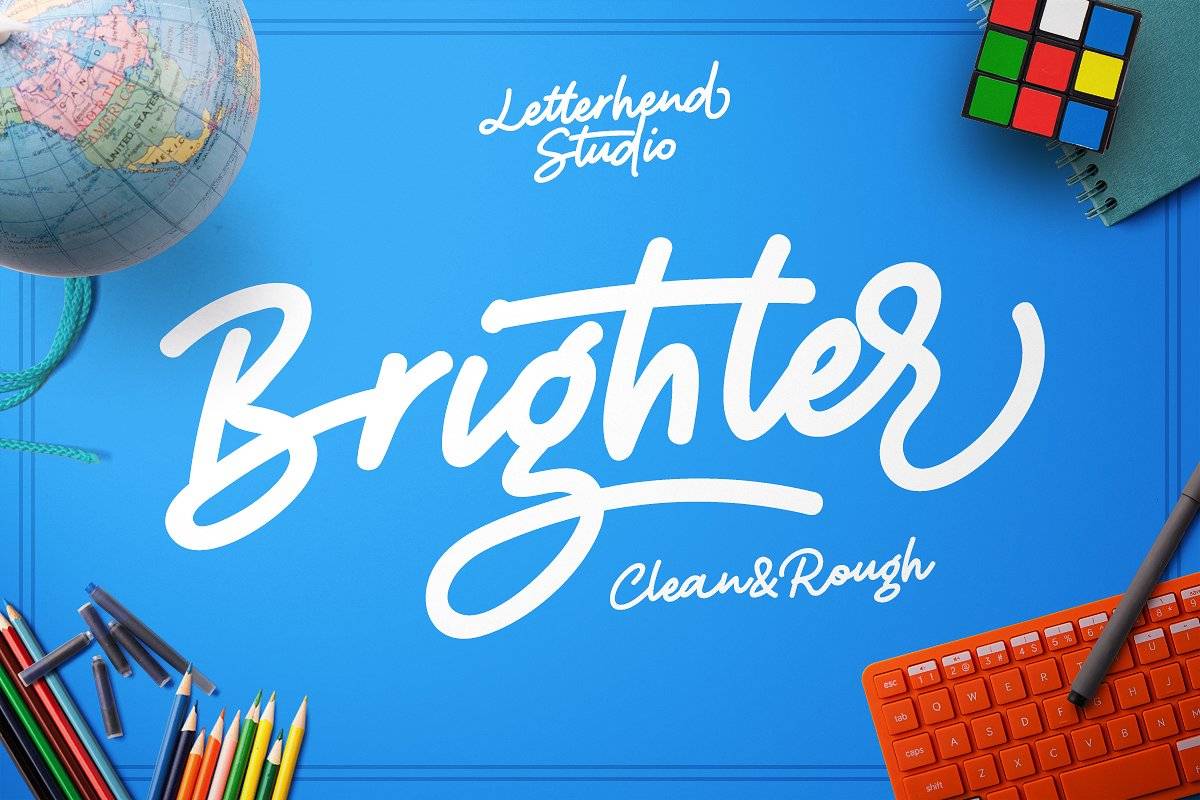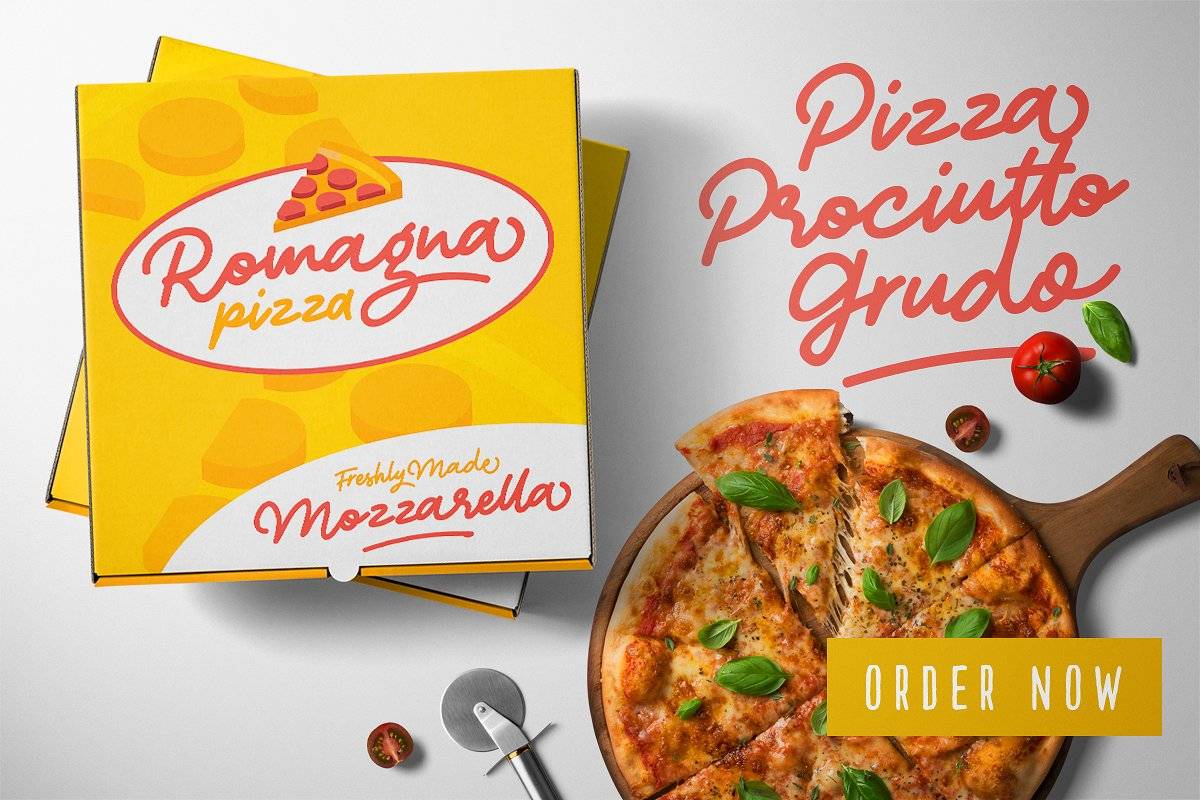
Brighter Font is a lively and modern script typeface with a casual, handwritten feel. It features smooth, rounded strokes with a moderate contrast and slightly condensed letterforms, making it friendly and approachable while maintaining clarity. Ideal for creative branding, invitations, and informal editorial projects, this font adds a personal touch that feels warm and engaging.
Brighter Font
About Brighter Font
| Font family | Brighter Font |